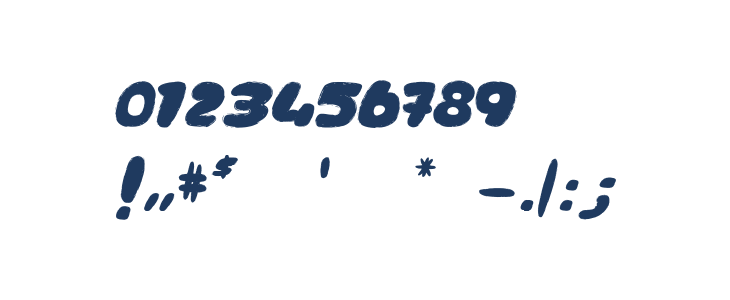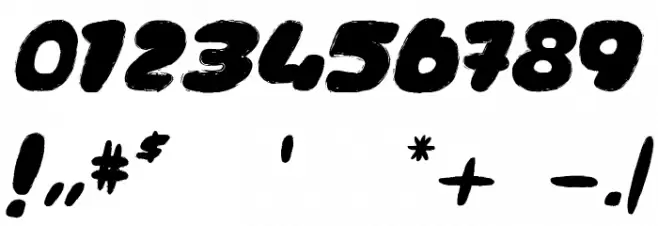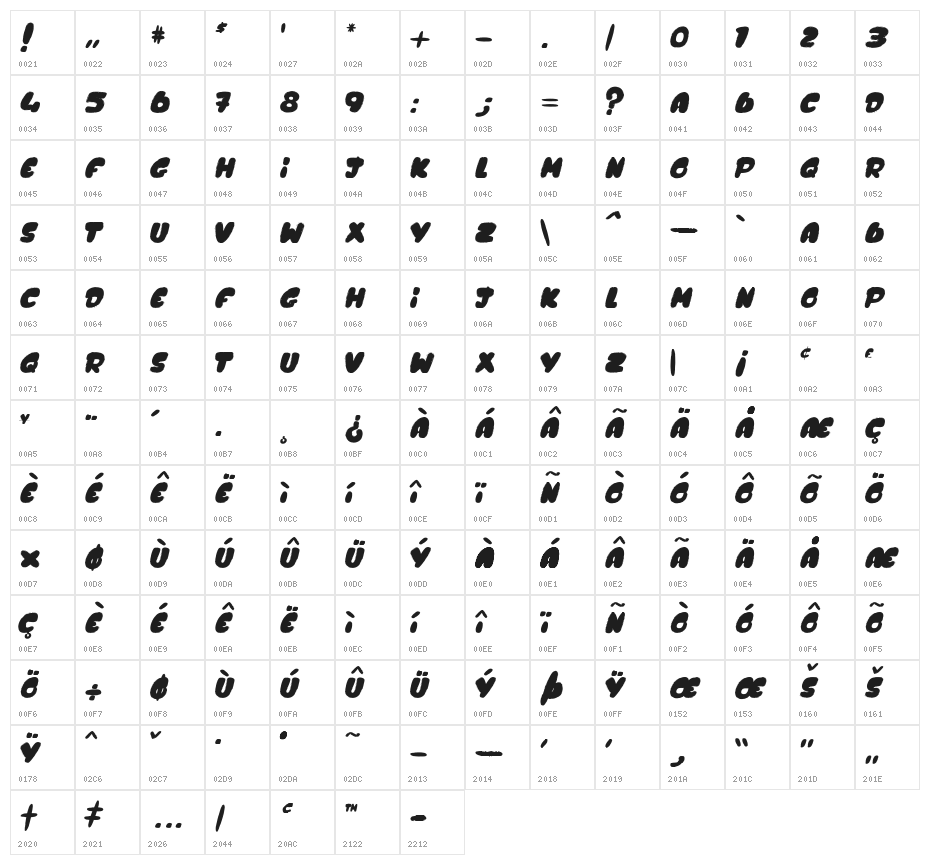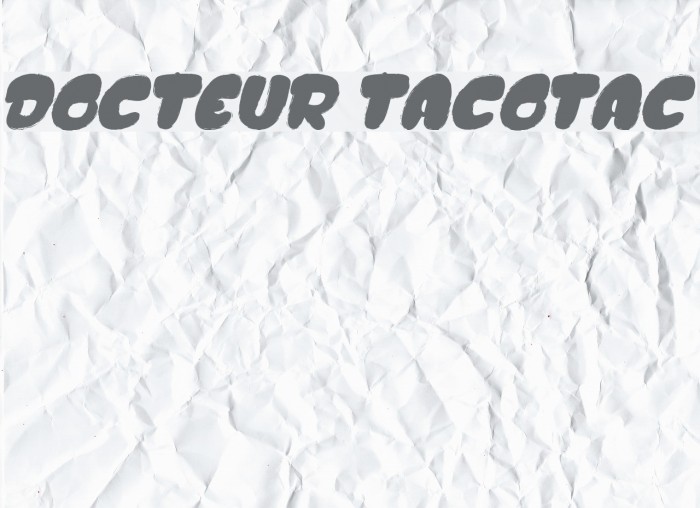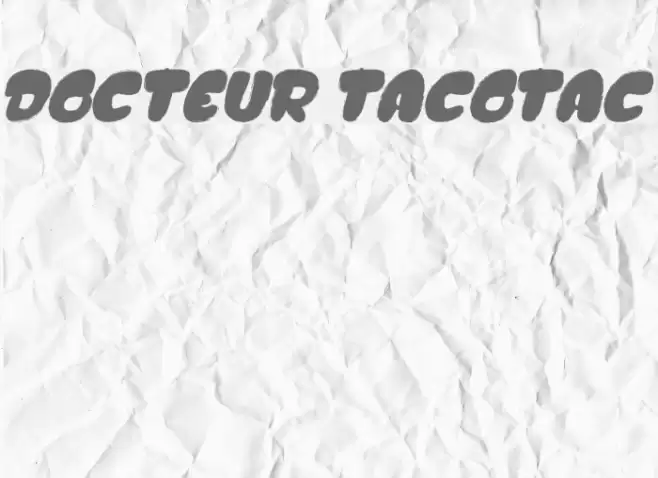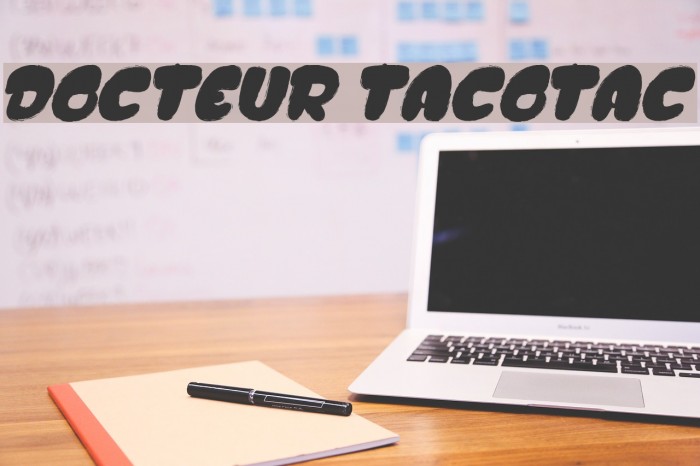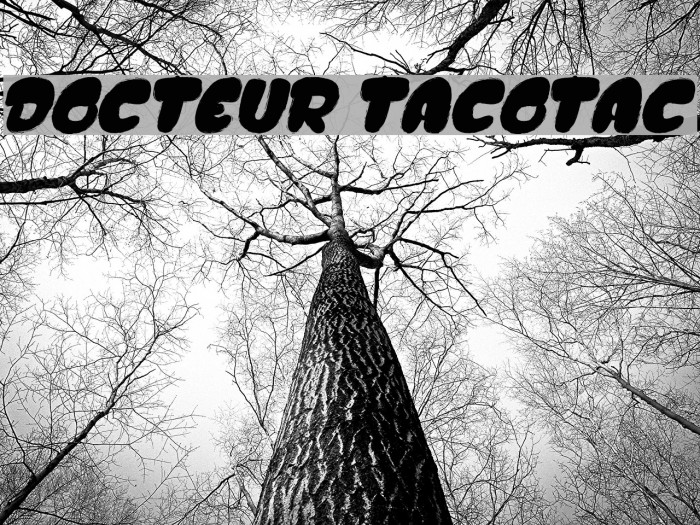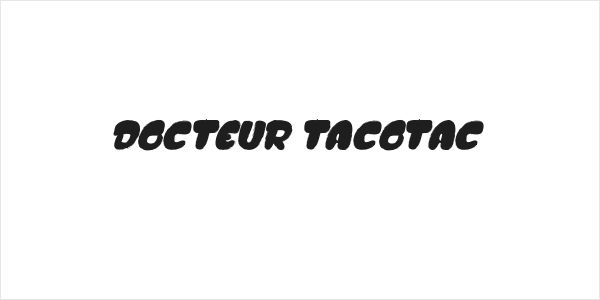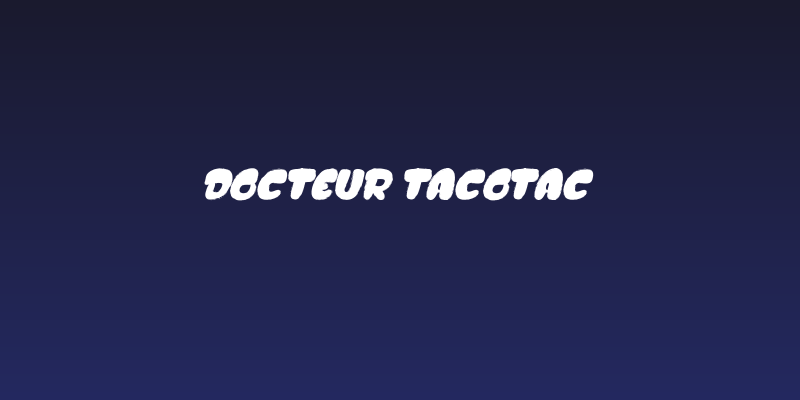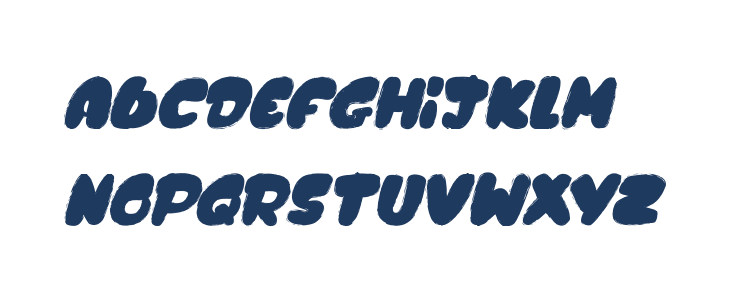
DOCTEUR TACOTAC Font
DOCTEUR TACOTAC Description
This font features a bold and playful style with thick, rounded strokes that give it a lively and energetic appearance. The characters are designed with a brush-like texture, adding a sense of movement and dynamism. The uppercase and lowercase letters maintain a consistent weight, contributing to a cohesive look. The numbers and special characters follow the same design principles, ensuring uniformity across all elements. This font's unique style makes it stand out, making it ideal for creative and eye-catching designs.
| Overall Style | Playful, Energetic |
| Proposed Projects | Ideal for posters, branding, children's books, and playful graphic designs. |